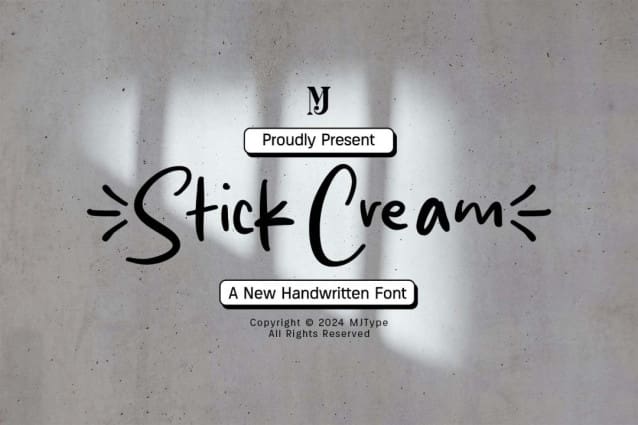
Stick Cream Font
Stick Cream Font, is a simple and friendly handwritten font. Its natural and unique style makes it incredibly fitting to a large pool of designs. The only limit is your imagination!